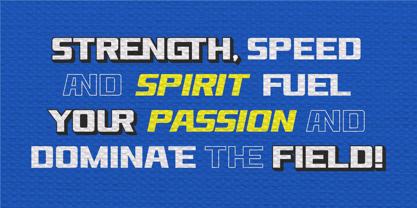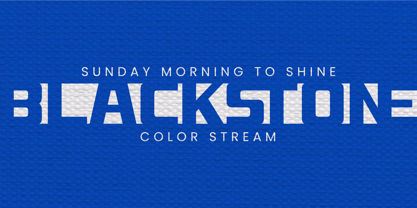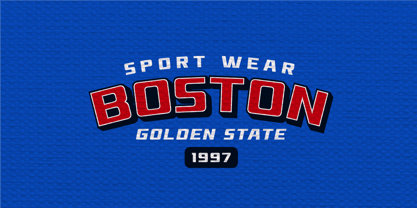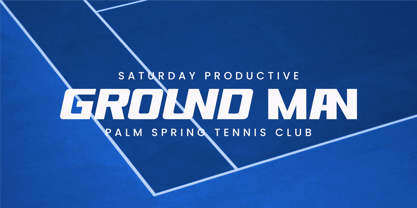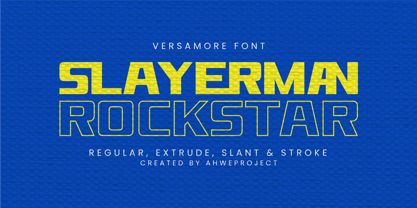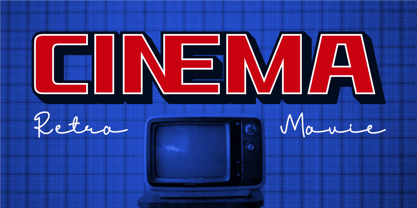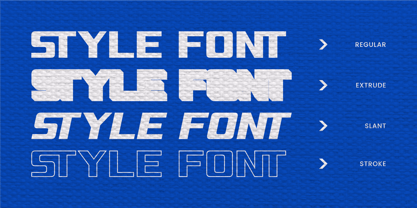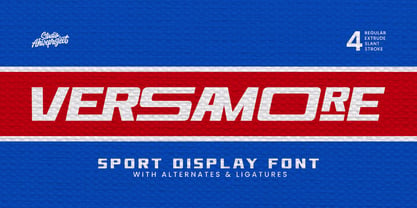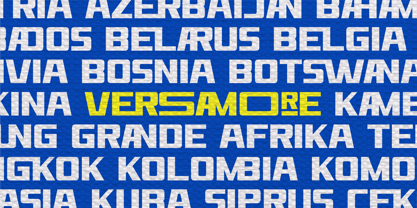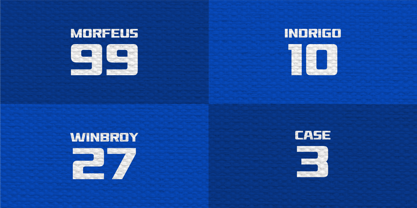
Versamore
The Versamore Font Family was designed by Dida Ahluddin and published by ahweproject. Versamore contains 4 styles and family package options. More about this family
Versamore is a modern sport-themed display font designed to bring energy, speed, and competitive spirit into your projects. With its bold, dynamic, and masculine look, this font is perfect for sports branding, racing, esports, and any promotional designs that demand a strong visual impact. Features: - Numbers and punctuation - Multilingual - Alternates - Ligatures - PUA encoded - 4 font styles: Regular, Extrude, Slant, and Stroke - Includes alternates and ligatures for versatile looks - All uppercase letters for a bold, dominant presence - Perfect for team logos, jerseys, tournament banners, and merchandise We strongly recommend using applications that support Opentype Features and Glyphs panels such as Adobe Apps and Corel Draw. So you can see and access all the variations of Glyphs. Happy Design!